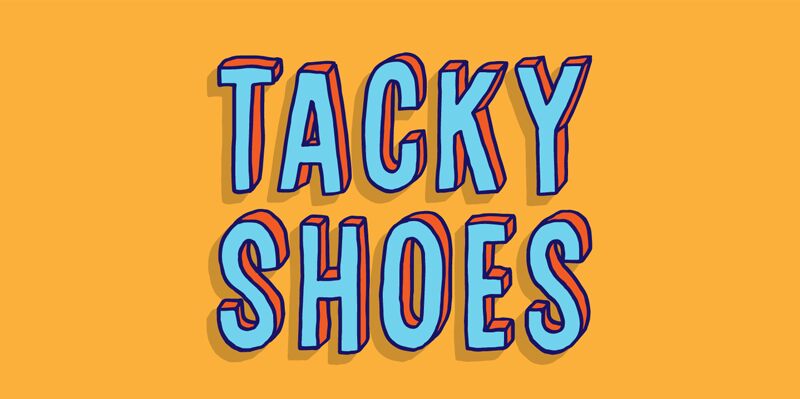
Tacky Shoes by Pizzadude is a playful and whimsical display font that will add a touch of fun to anything it's used for. With its 3d cartoon style and semi-light weight, this font is perfect for children's books, toy packaging, and birthday party invitations. Its extra-condensed width also makes it suitable for creating eye-catching headlines or captions in advertising campaigns. Let Tacky Shoes bring some lightheartedness to your next project!